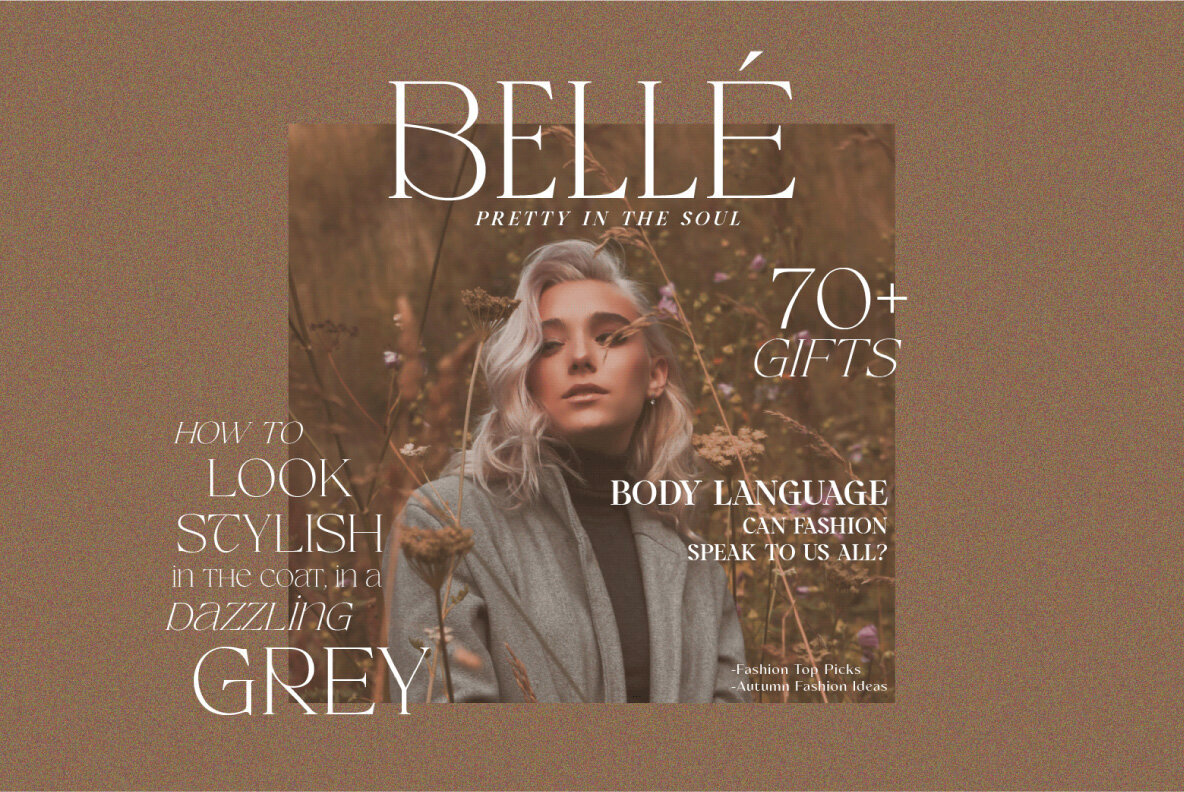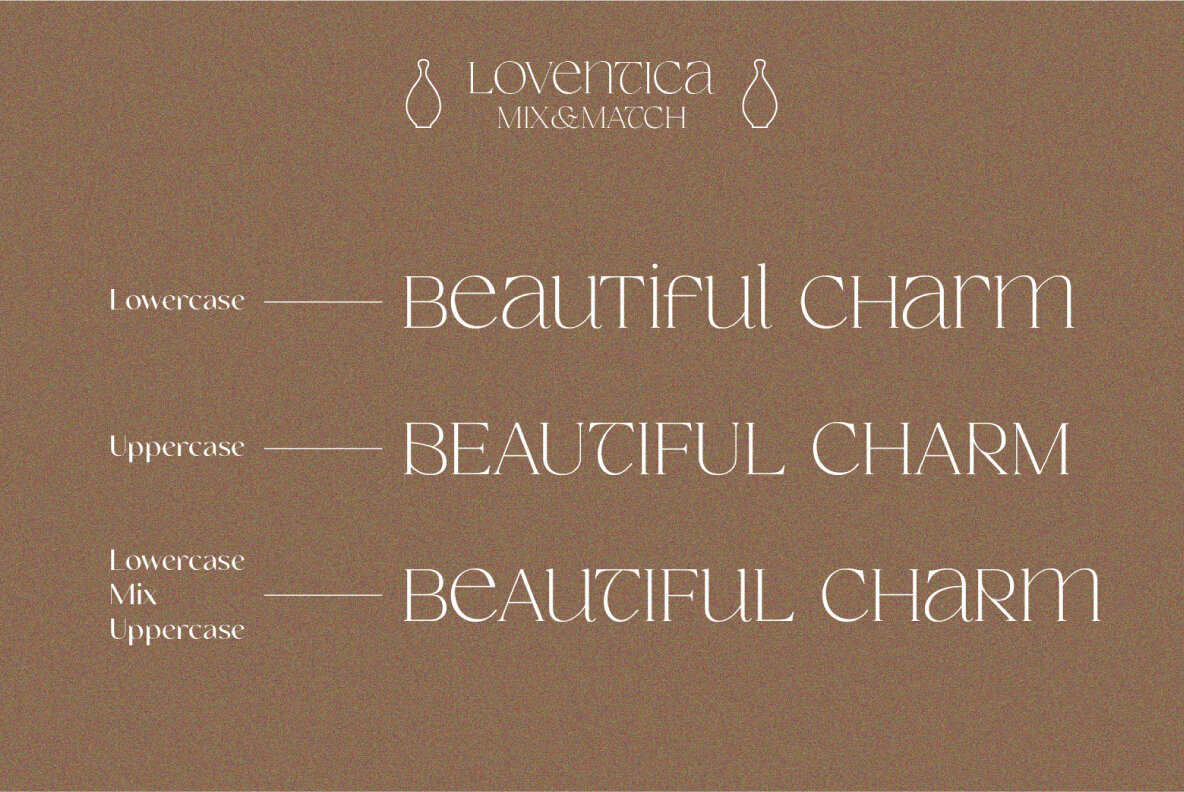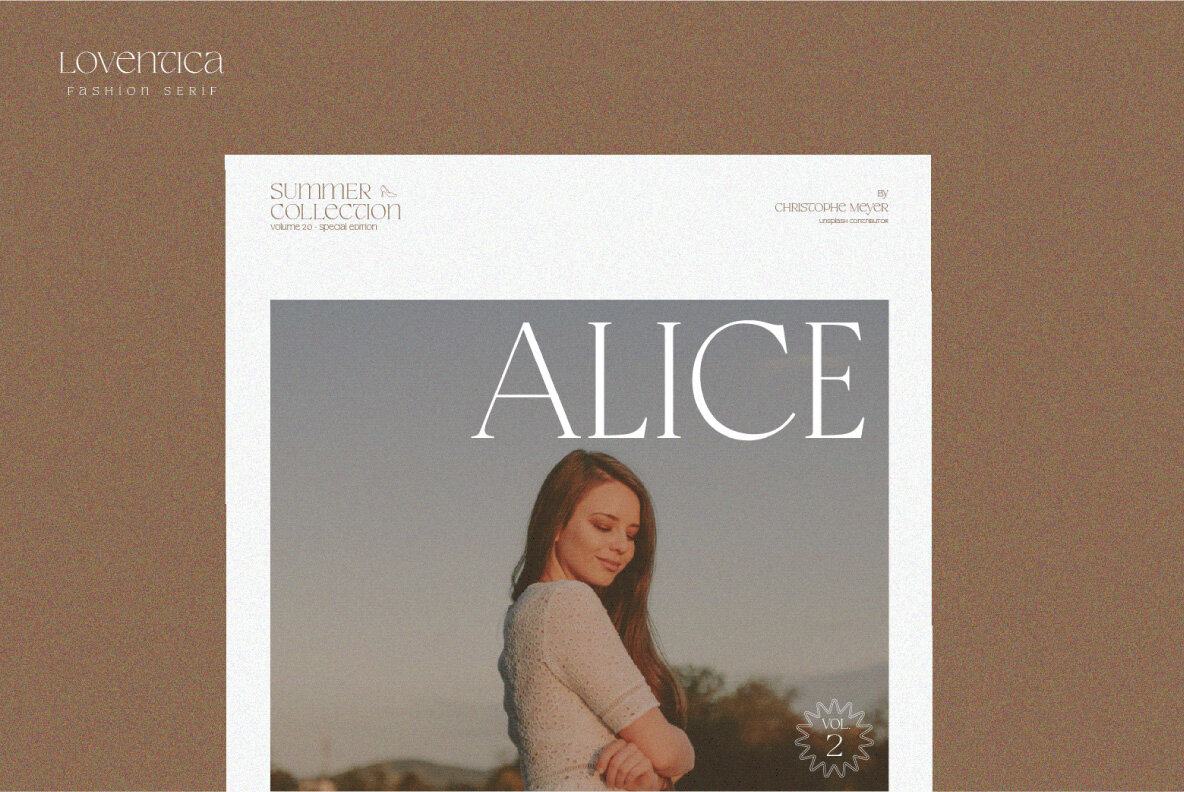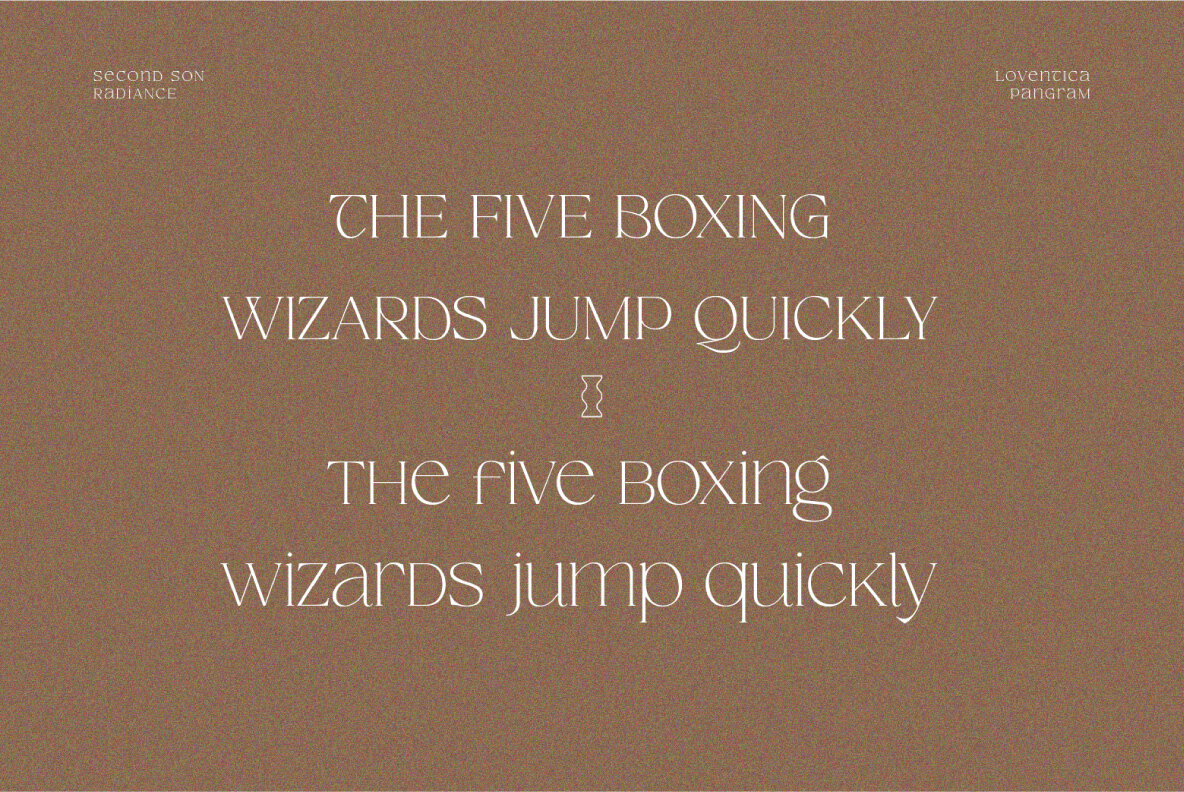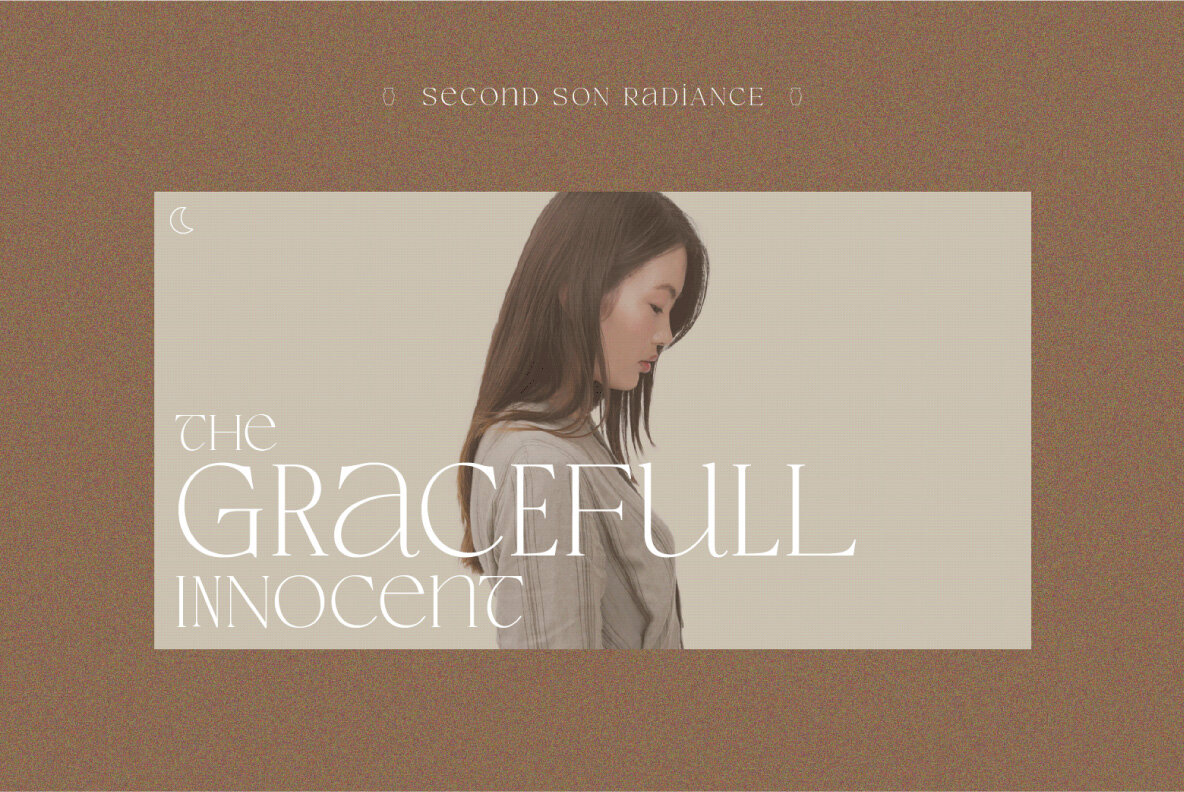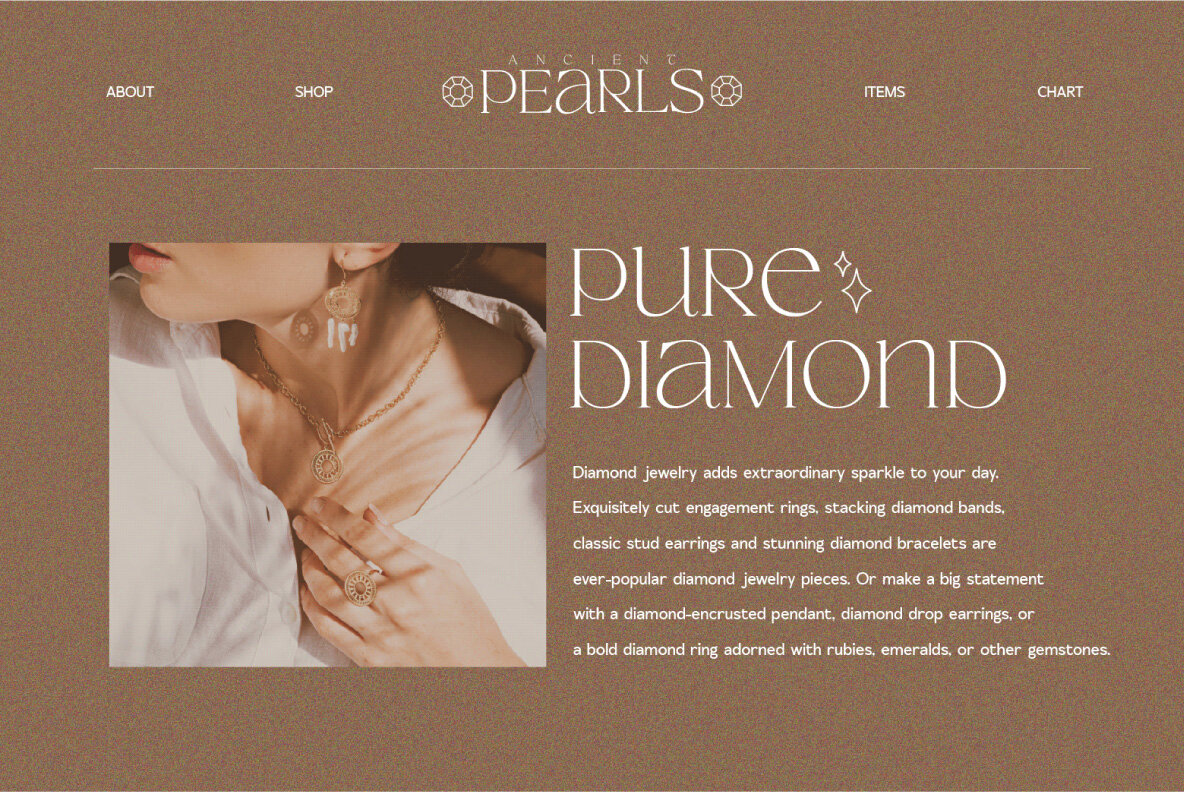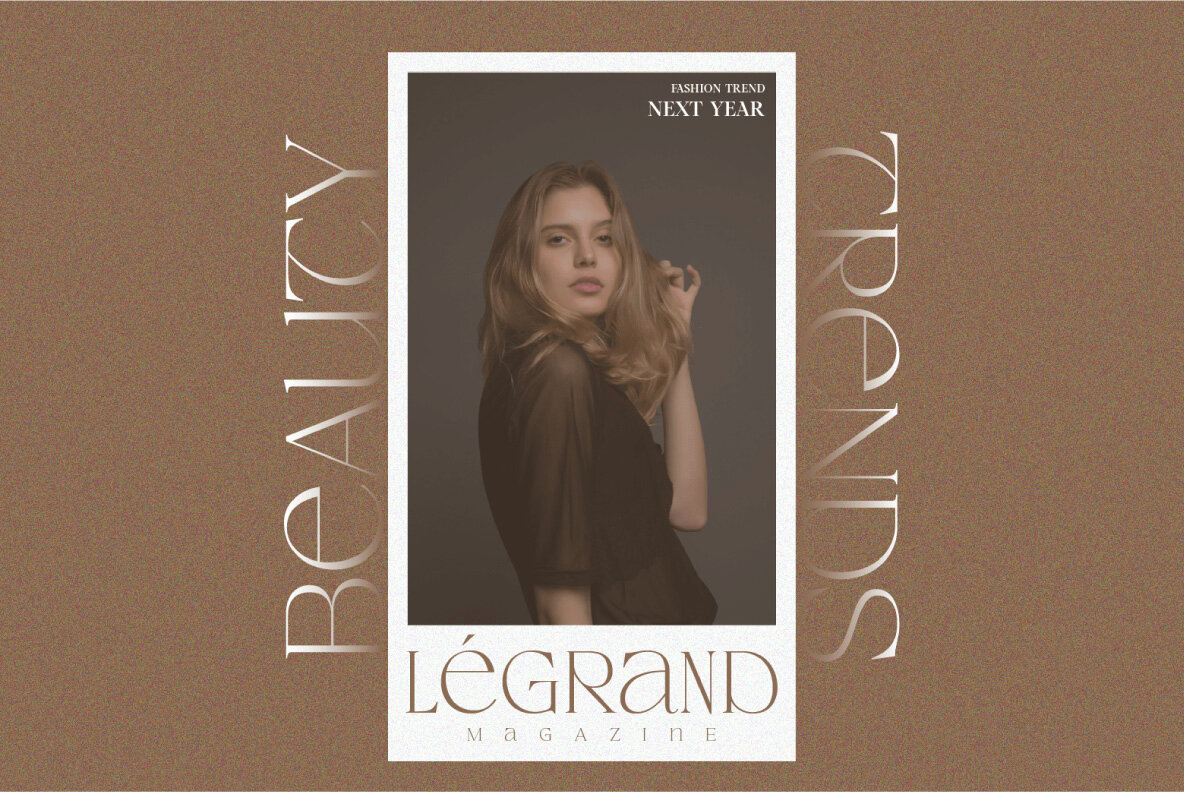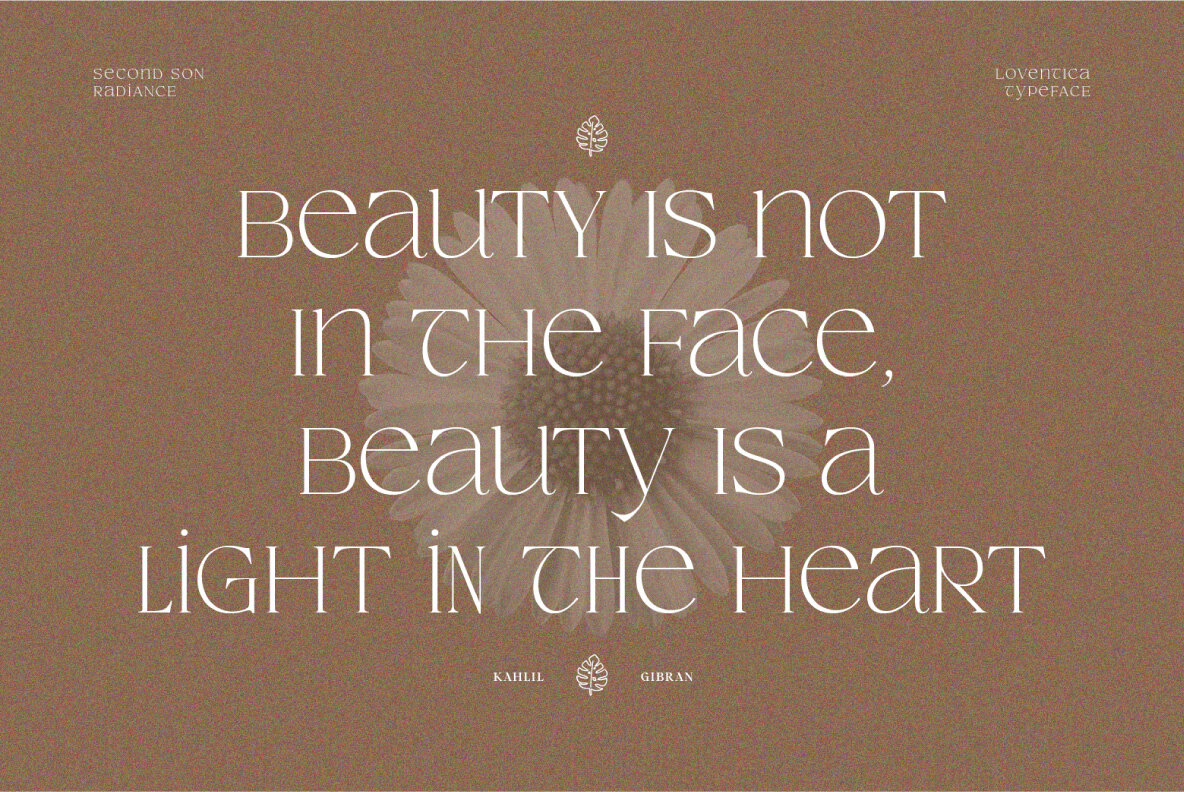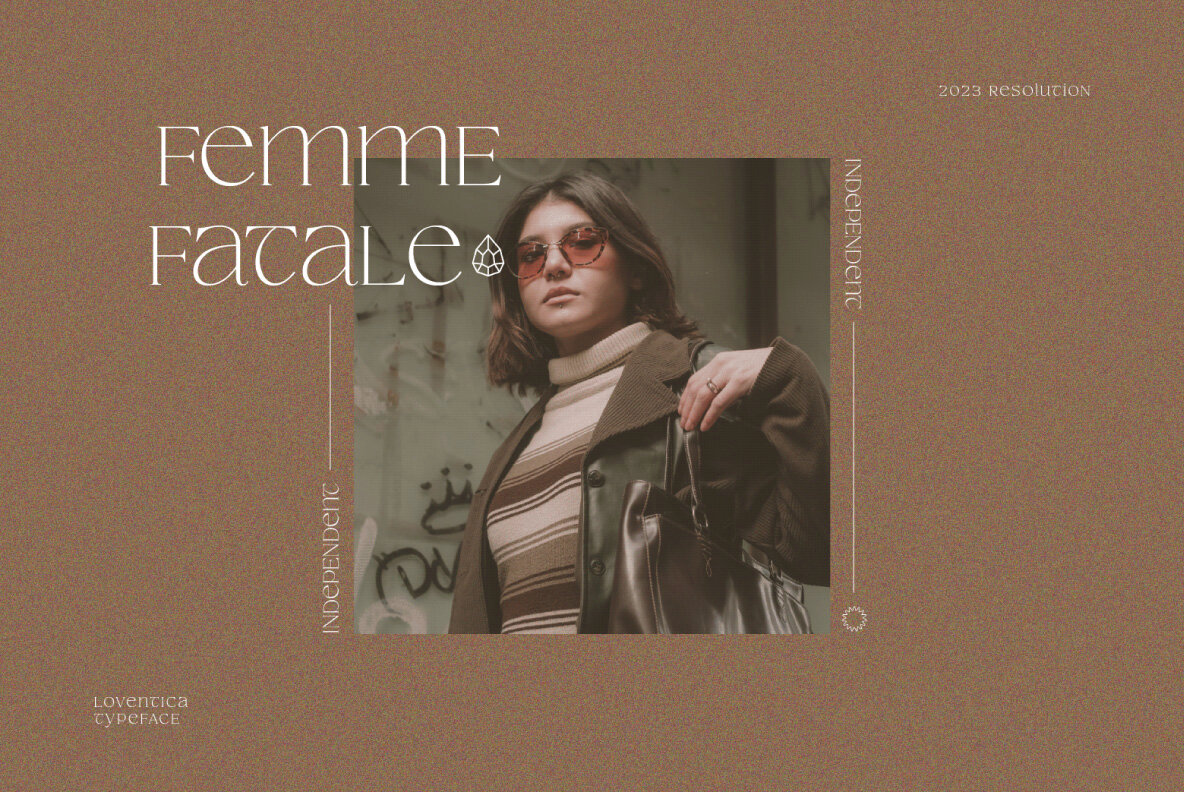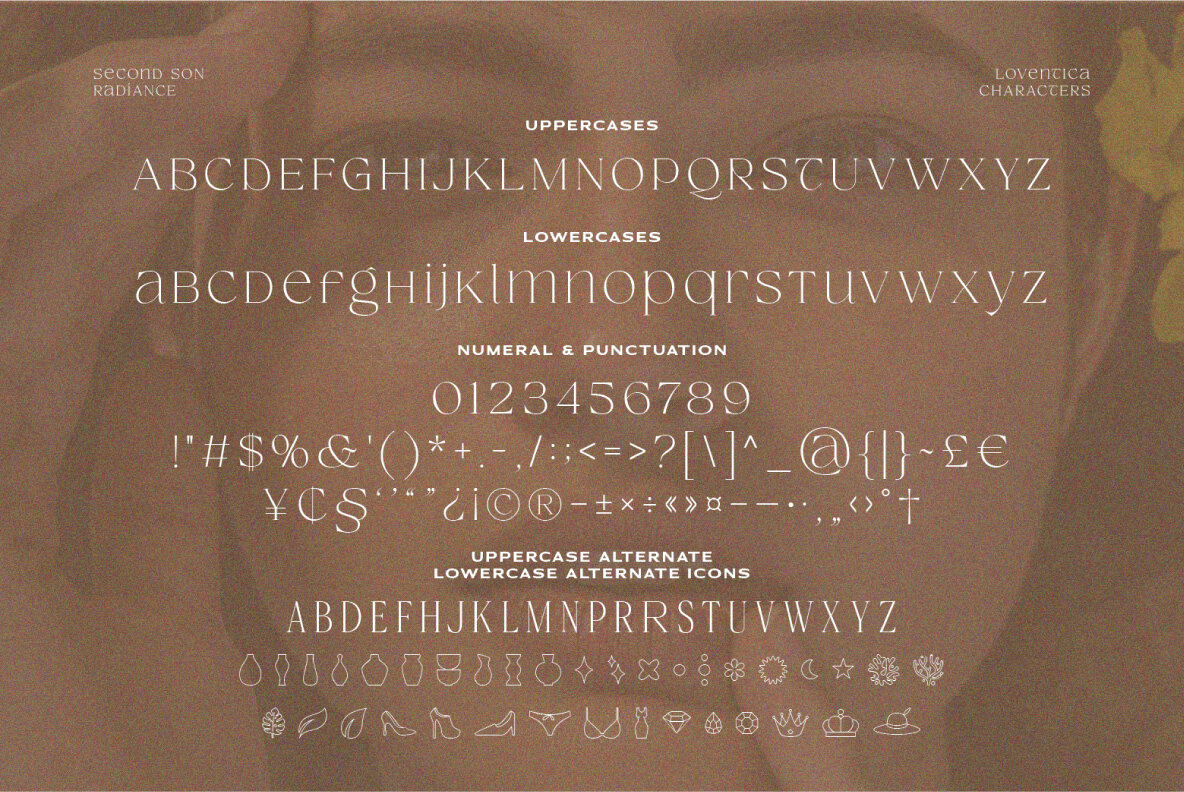
SS Loventica Font
Loventica Regular
Loventica is a sophisticated serif font designed to exude elegance and charm. Notably, it features uniform uppercase and lowercase heights, allowing seamless mixing and matching for creative typography. Loventica comes with condensed alternates and symbols, making it ideal for diverse projects such as luxury logos, branding initiatives, and high-end editorial designs. It's equally at home in women's magazines, cosmetic brand identities, art gallery branding, boutique branding, and stationery design. The font also enhances blog aesthetics, modern advertising, card invitations, art quotes, home décor, book titles, and special events.
This beautiful serif supports multilingual usage, broadening its application across global projects. Key features include a comprehensive set of Basic Latin characters (A-Z and a-z), numbers, punctuation, symbols, and OpenType features. Additionally, Loventica provides condensed alternates, PUA encoding, and extensive multilingual support. Add a touch of finesse to your designs with Loventica and explore infinite creative possibilities.